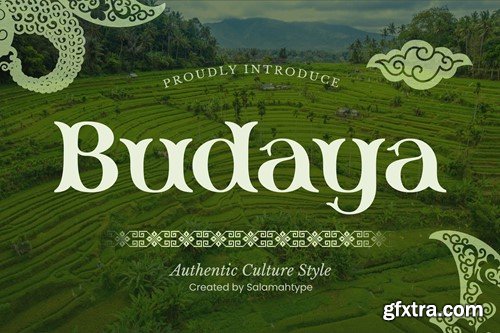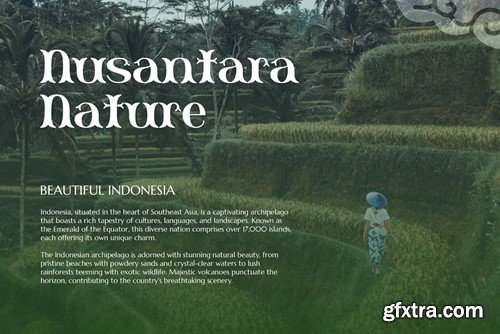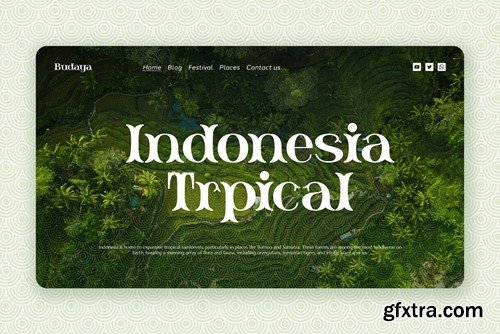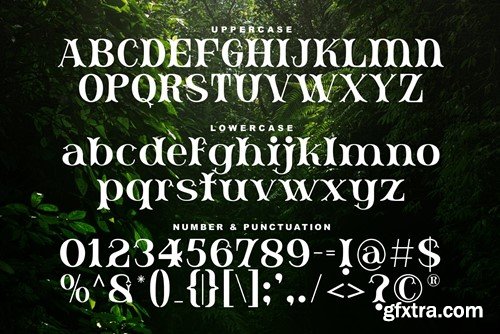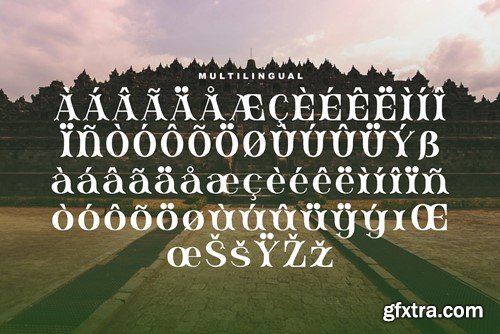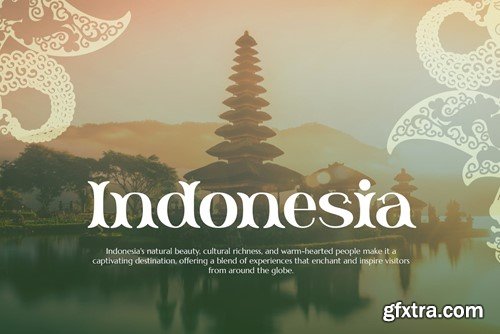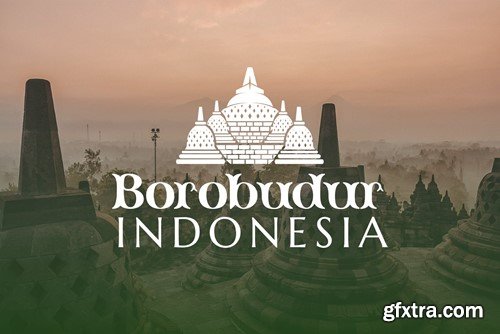
Budaya - Classic Culture Font
Introducing our font called "Budaya" which is a unique letter shape that gives a classic or traditional impression. This typeface incorporates visual elements, characters, or stylistic features inspired by the traditions, art, or aesthetics of a culture. This font is perfect for branding projects, logo concept designs, poster titles, tourism design activities, billboards, tourism magazines, product packaging businesses, tourism film projects, websites and much more! Feature: Hope you enjoy our fonts, thank you! by Salamahtype Creative Studio